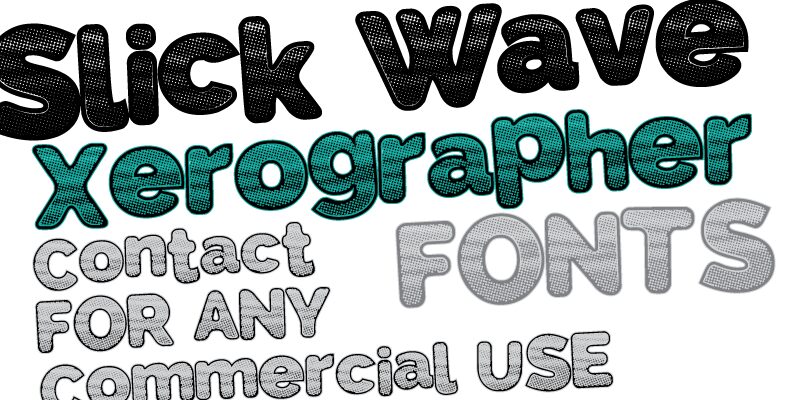
Slick Wave by Xerographer Fonts is a free eroded display font with swollen, cartoon-like lettering. Its rounded forms lean and wobble slightly, giving the line an uneven, hand-shaped silhouette. A dense field of tiny white specks cuts through the dark strokes.
The halftone texture points straight to comic-book and pop-art graphics, making the font a lively fit for posters and album covers. It also suits skateboard merchandise and youth-event promotions, where the oversized curves can become part of the artwork rather than neutral type. For snack packaging or playful apparel brands, the mottled surface can establish a printed, ink-heavy product identity with a rough screen-printed look.